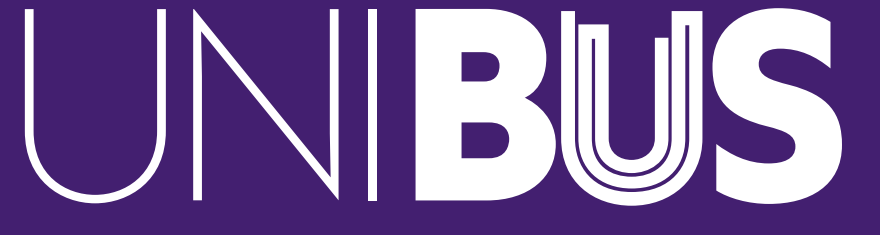
So im trying to figure out what font this may be.
It is from the UNIBUS logo
I think the part that says “UNI” is Gill Sans Nova. Can someone confirm? I’m mainly looking for the Font(s) in the word “Bus” Thank you.
UNI is Gill Sans Nova Ultralite, B and S are Gill Sans Nova Heavy or ExtraBold. The U is customized for the logo.